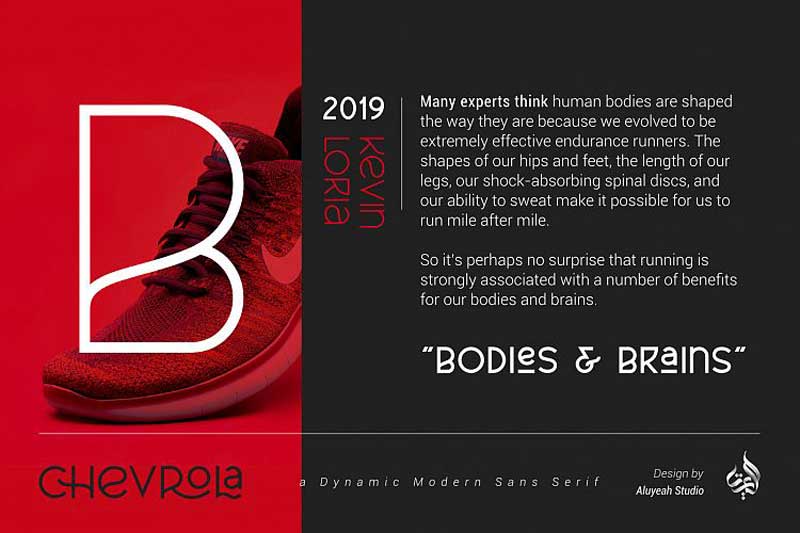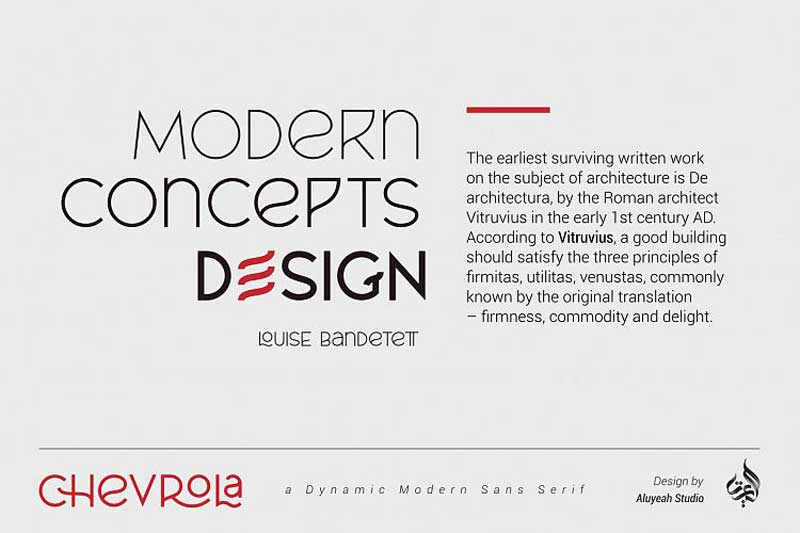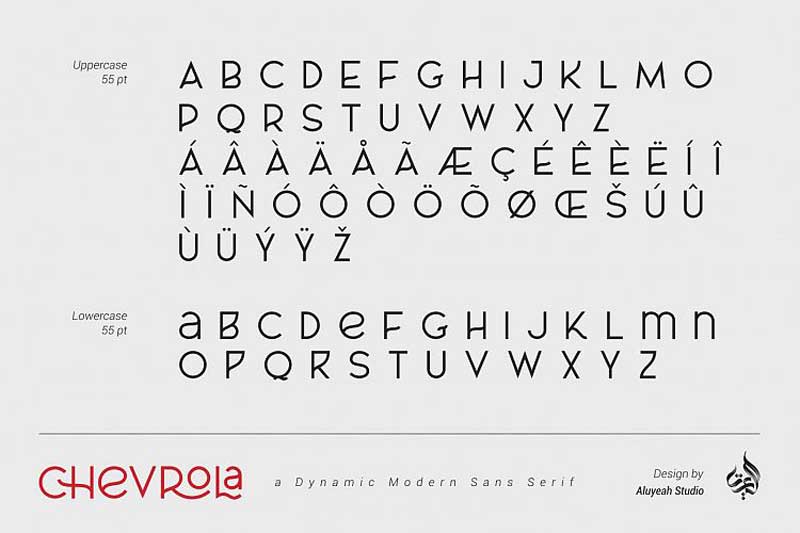
Download Free AL CHEVROLA Font. AL CHEVROLA is a modern dynamic sans serif font. It gives your design elegant, simply cool, chic and strong vibes. 4 weight OpenType and Multilingual  15 languages support. Very easy to use with PUA Encoded. You can use this font for branding, magazines, logos, and packaging.
CHEVROLA Font Family